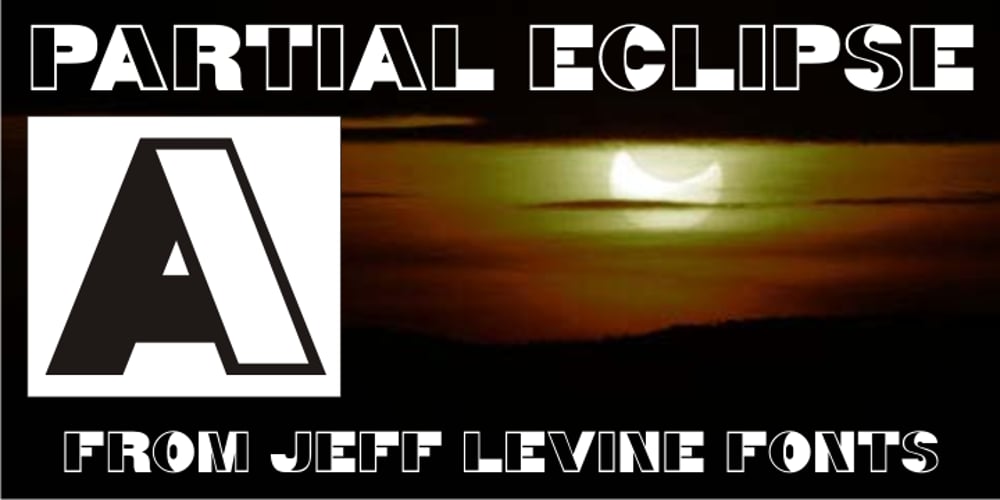
Partial Eclipse JNL
Partial Eclipse JNL font
Partial Eclipse JNL Font Family was designed by Jeff Levine and published by Jeff Levine. Partial Eclipse JNL contains 1 styles and family package options. Take a classic wood type design, add some white panels to parts of the letters and numbers and you end up with Partial Eclipse JNL, a novelty display font that adds a clean, yet unique look to your digital or print project. A little experimentation can go a long way!